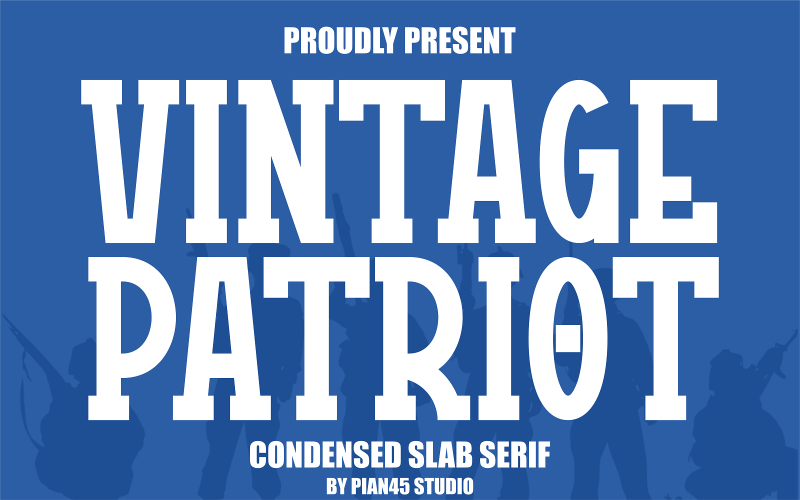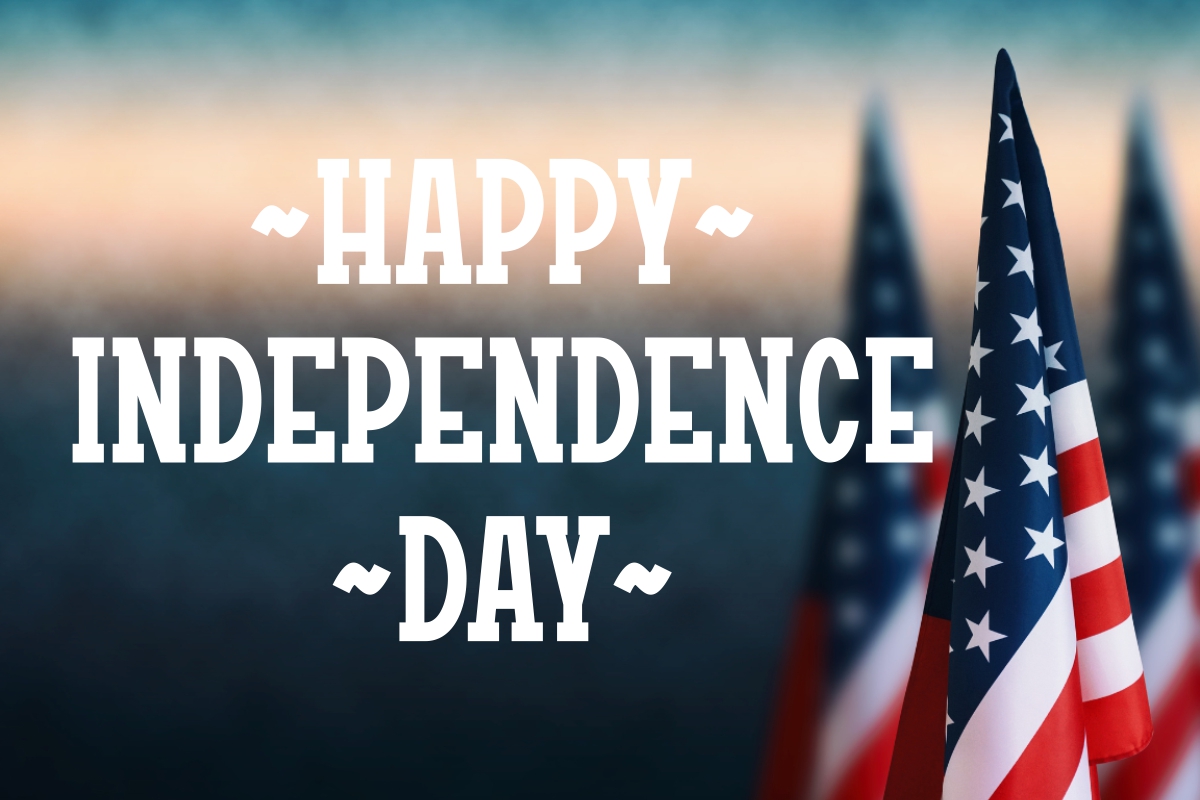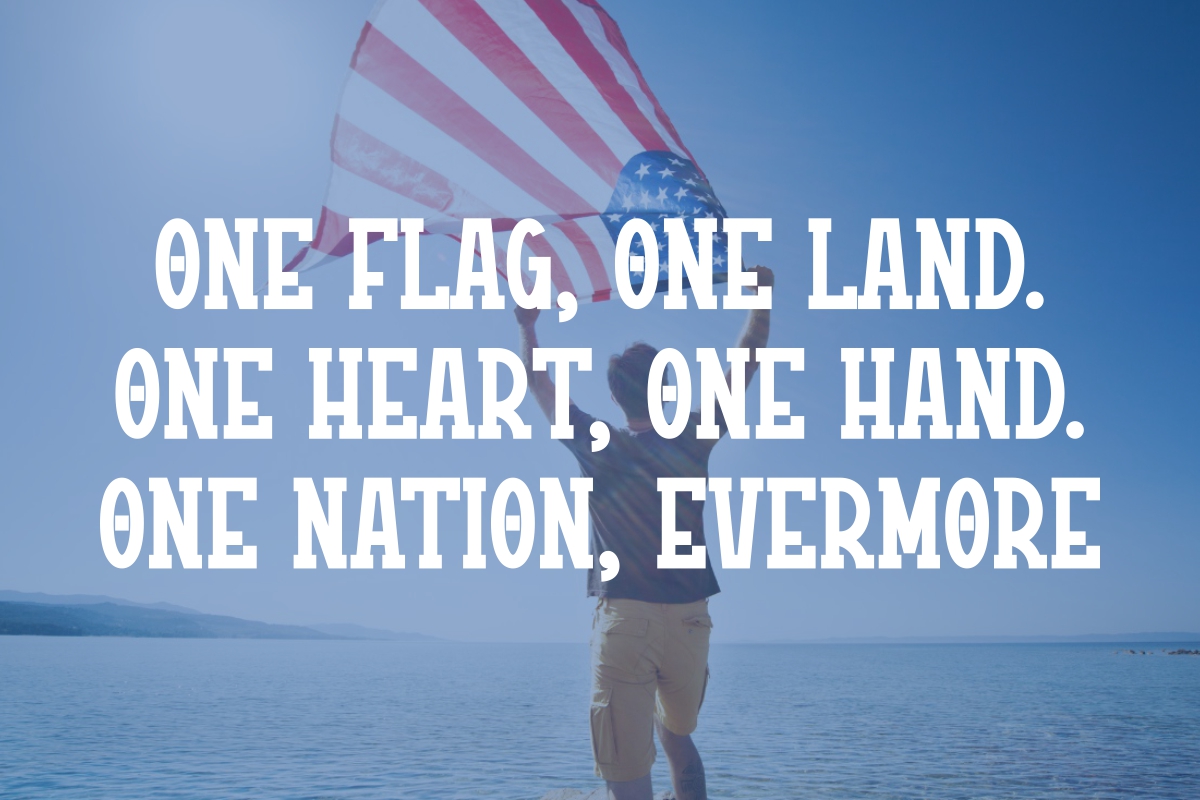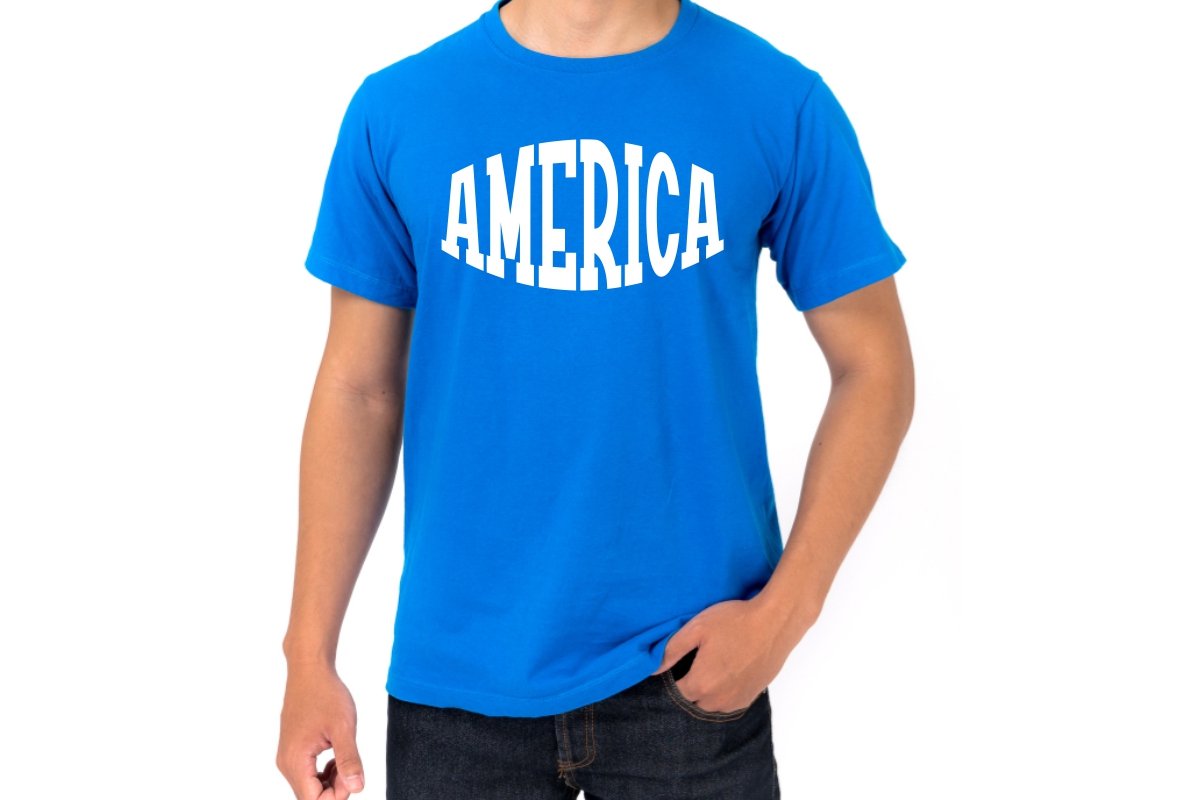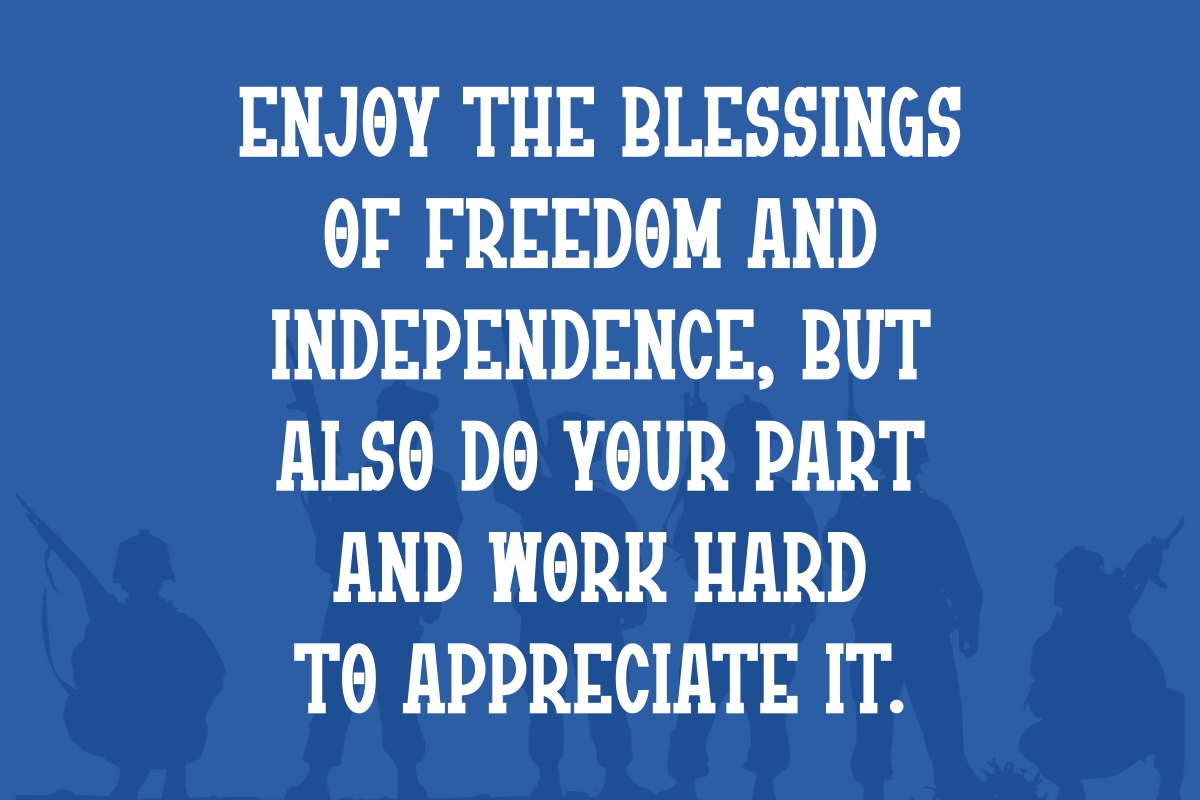
Vintage Patriot - Condensed Slab Serif Font
Introducing VINTAGE PATRIOT, a commanding typeface that captures the spirit of mid-century Americana and classic military/collegiate typography. This ultra-bold condensed slab serif is engineered for maximum visual impact, making it ideal for headlines where your message must be powerful and unmissable. Inspired by historic posters, vintage vehicle lettering, and old-school athletic apparel, Vintage Patriot delivers a reliable and robust look. Its condensed verticality allows you to fit large, striking text into tight spaces, making it highly efficient for display purposes. This font is a must-have for designers seeking to blend nostalgia with modern, aggressive visual communication.